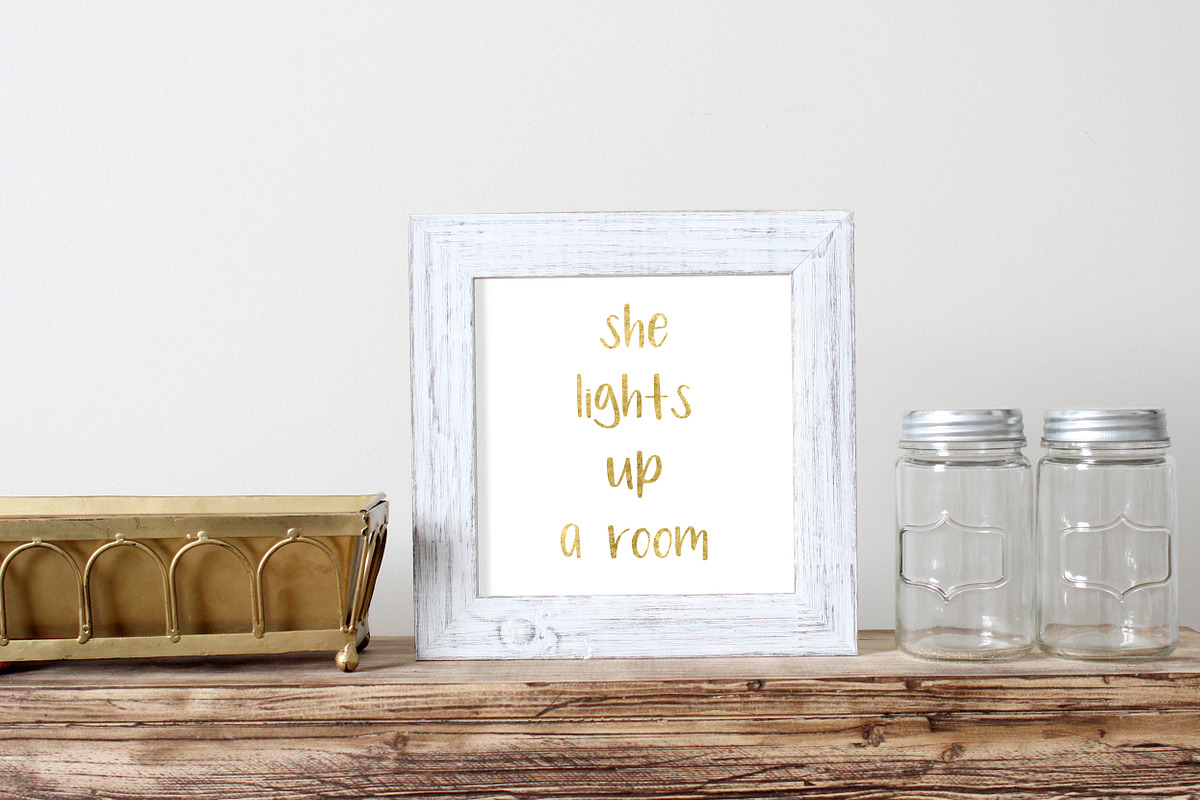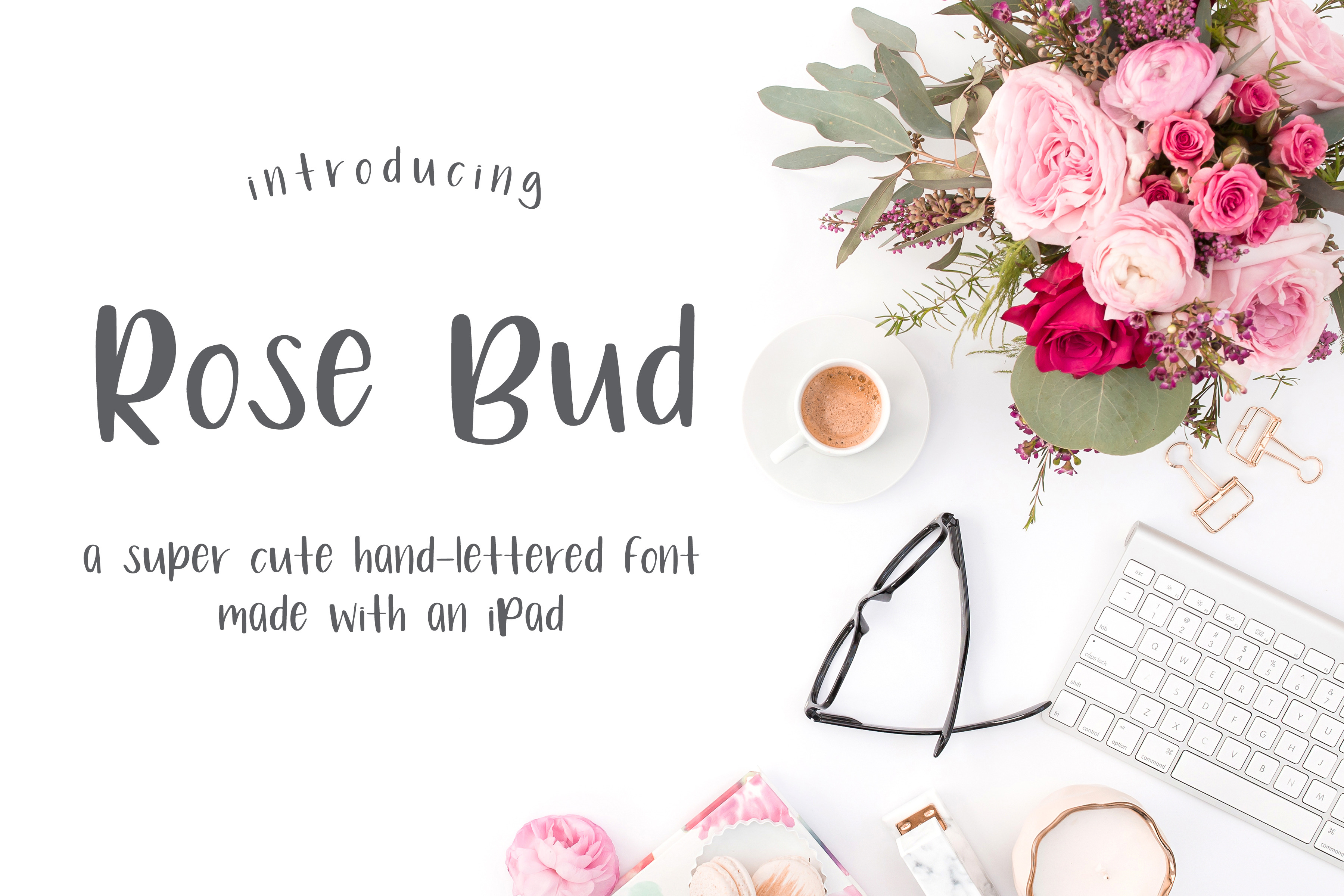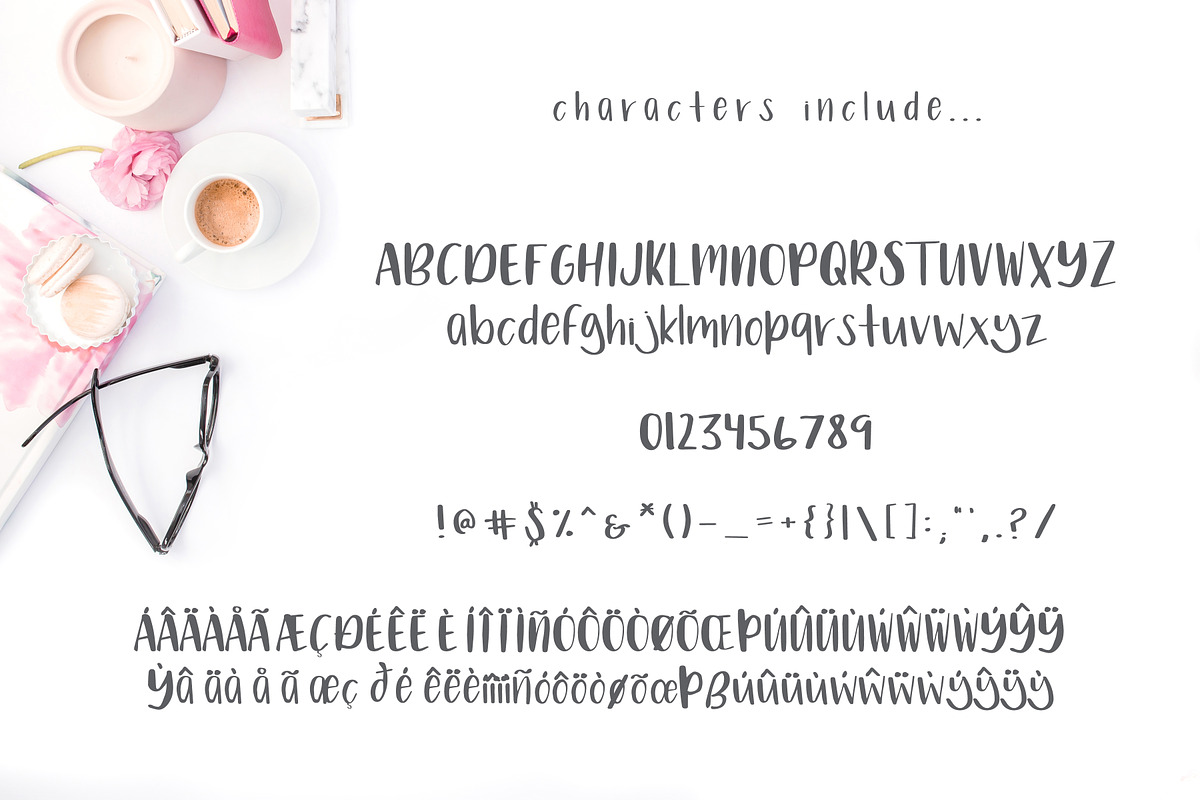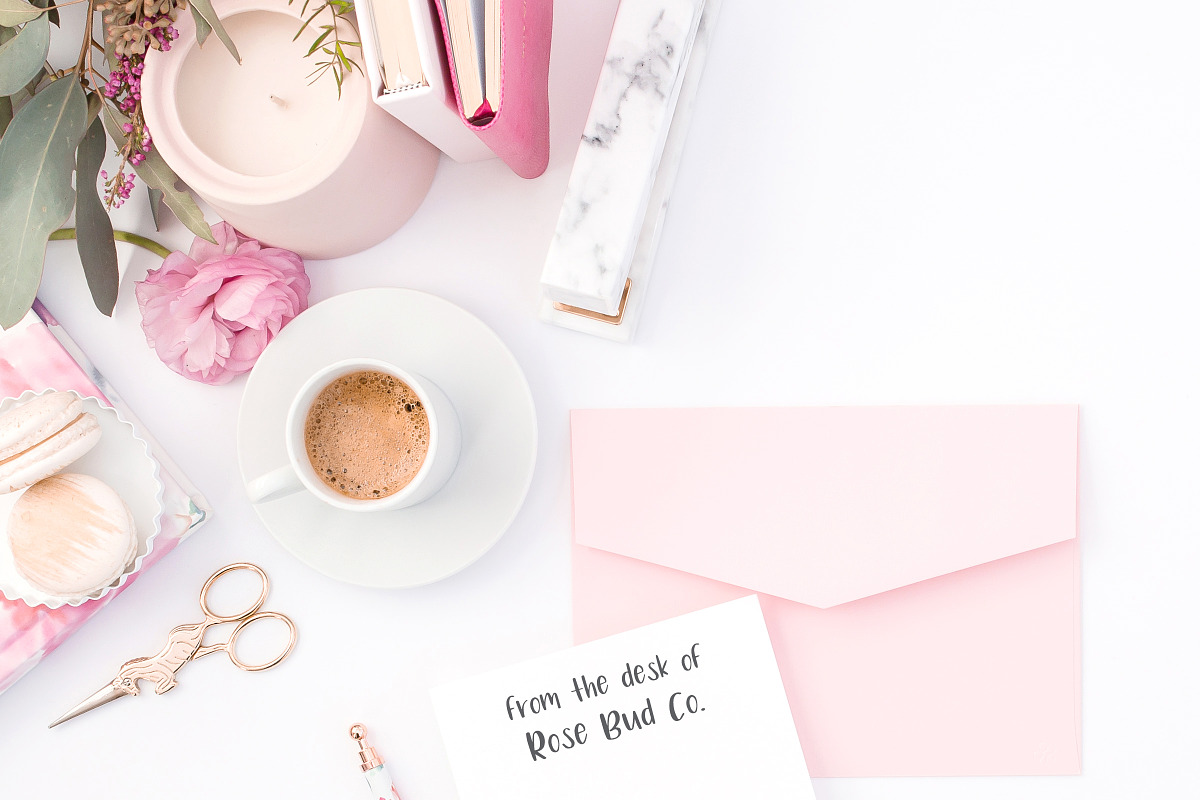
Rose Bud Hand-Lettered Font
Rose Bud is lovingly hand-drawn, whimsical font, designed on an iPad. Perfect for logos, lettering t-shirts, invitations, & more. Purchase includes .otf file.
Bonus! Rose Bud features European language support!